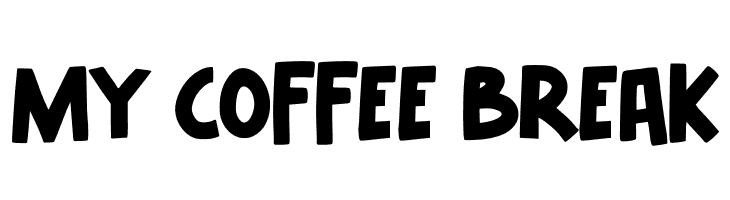
A playful, bold handwritten font with a friendly and casual style.
A playful, handwritten font with fluid, irregular strokes.
A whimsical, handwritten font with playful curves and varying stroke widths.
A bold, handwritten font with playful, cursive-like characters.
A playful handwritten font with a casual and friendly style.
A playful, handwritten font with smooth, rounded edges and a whimsical style.